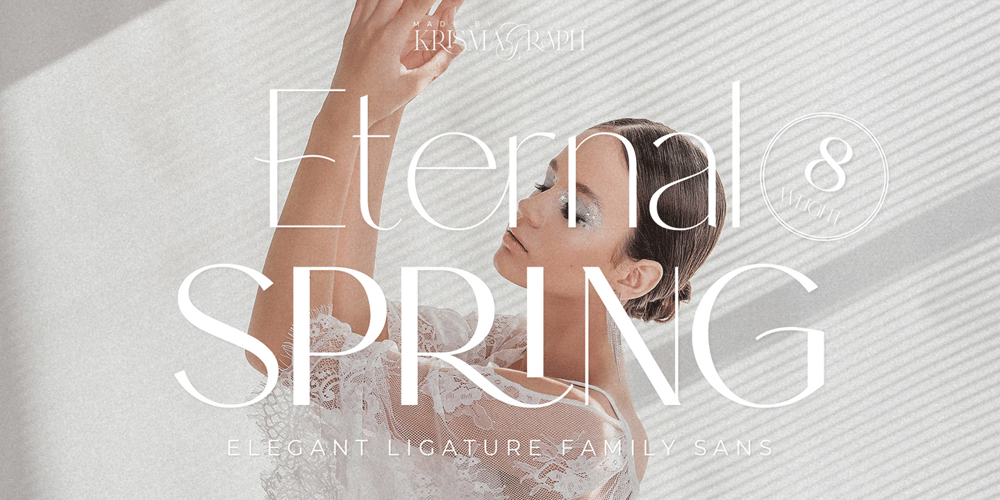
Eternal Spring
Eternal Spring font
Eternal Spring Font Family was designed by Ratna Krismawati and published by Krismagraph. Eternal Spring contains 8 styles and family package options. Eternal Spring is an elegant and modern San serif font family. It’s sans serif in 8 weights from Thin to ExtraBold font. Comes with 76 unique ligatures and 27 alternates. Eternal Spring is a multipurpose font perfect for any project, with high contrast glyphs, giving it a feminine and masculine quality, modern, and easy to read. Excellent in layout design for quotes or body copy, best used as a display for headings, logos, branding, magazines, product packaging, invitations, and others. This font is easy to use and has OpenType features.